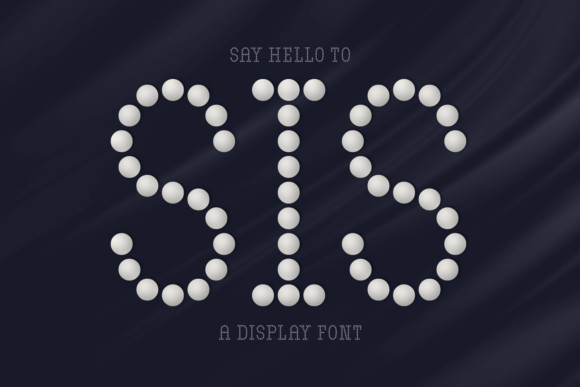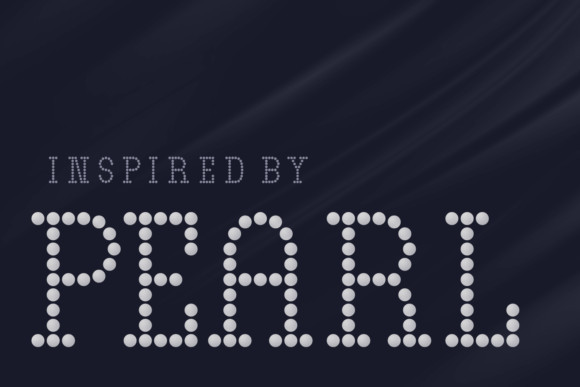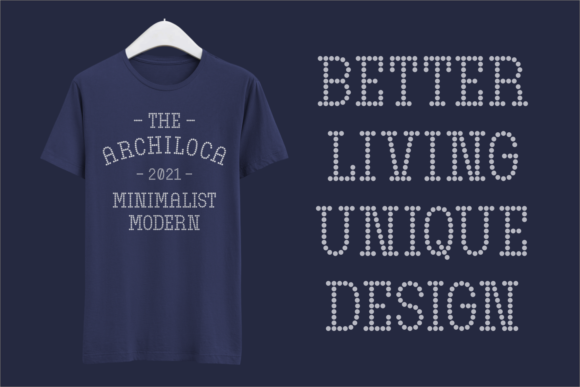
Sis Font
Sis is an incredibly neat and genuine display font. This original look will appeal to a wide range of crafty ideas, from letterheads and titles, to stationery.